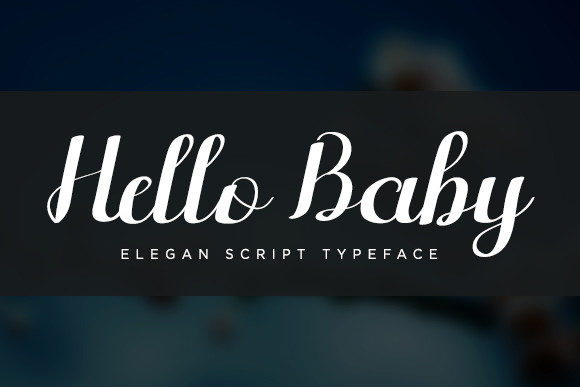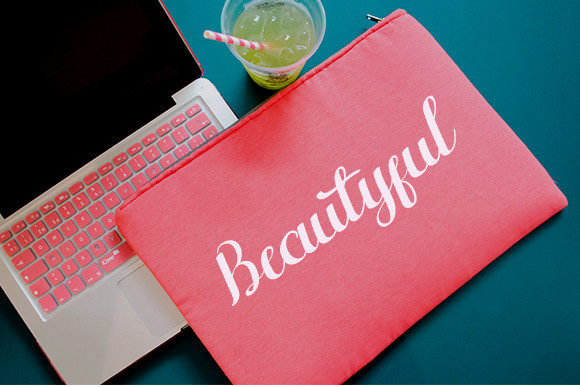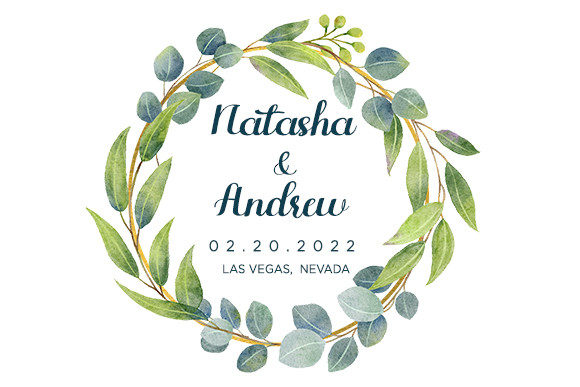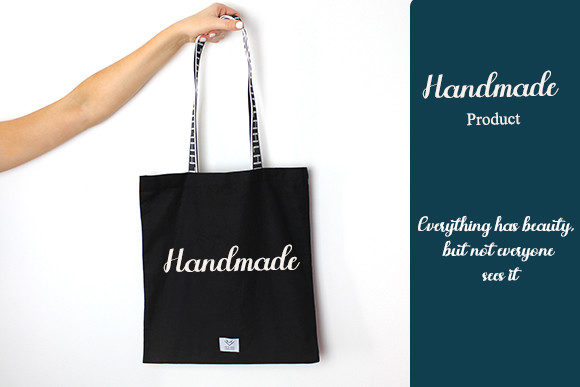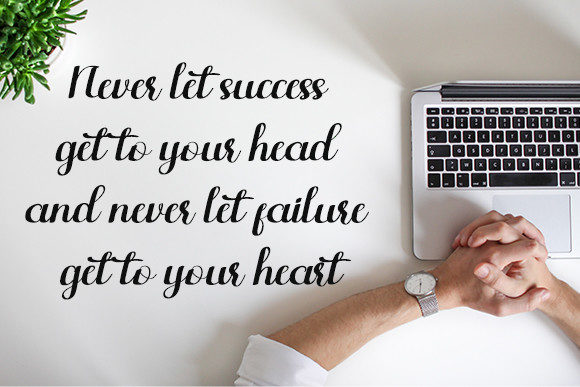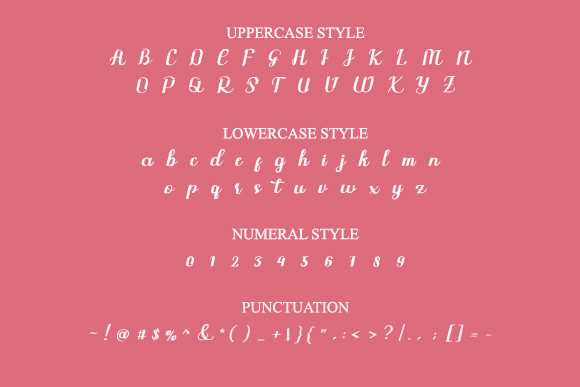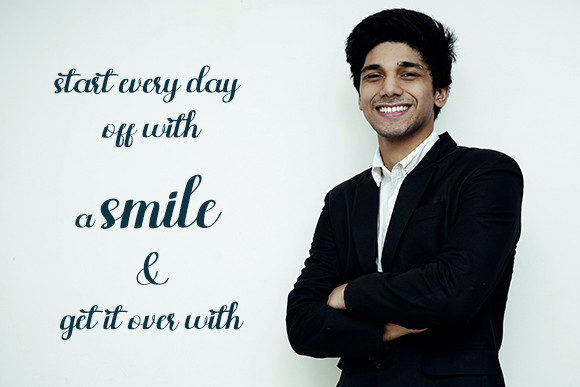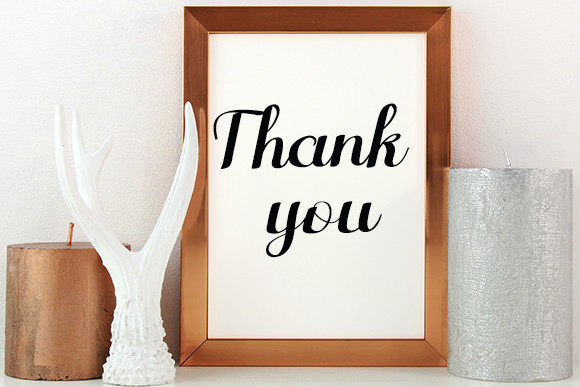
Hello Baby Font
About Hello Baby Font
Hello Baby is a beautiful and dazzling handwritten font that is unique and elegant. It will add a luxury spark to any design project that you wish to create!